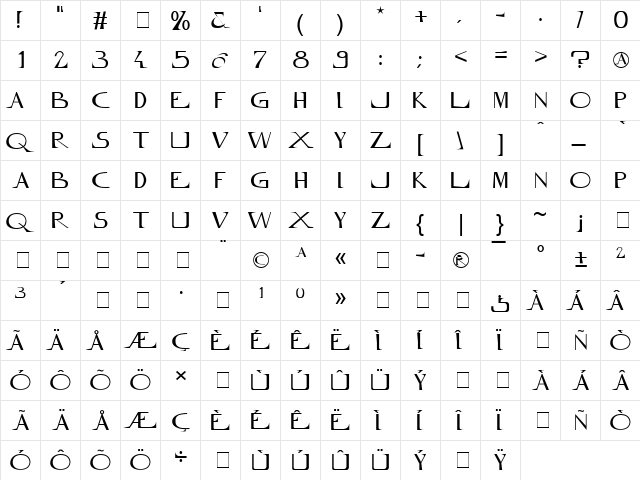
Innamoramento Regular
| Designer | Com N'B & Keyan Farlander. |
Design Context for Innamoramento Typeface
Innamoramento takes a measured approach to typography — its balanced proportions and neutral character make it a reliable workhorse for both digital and print work.